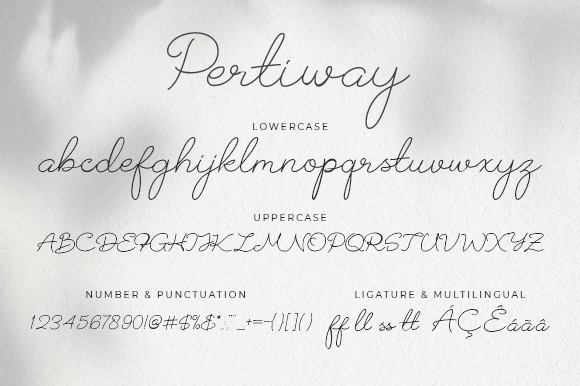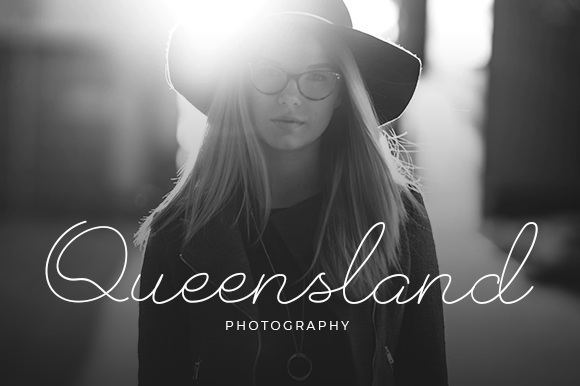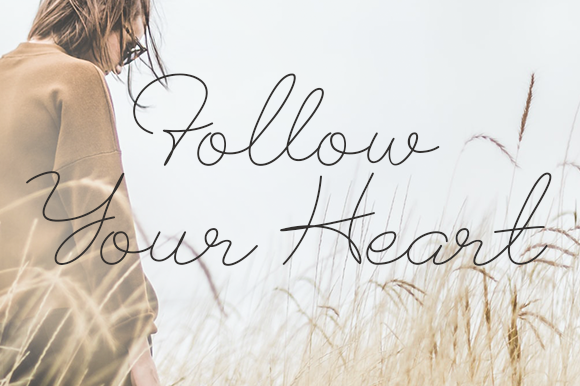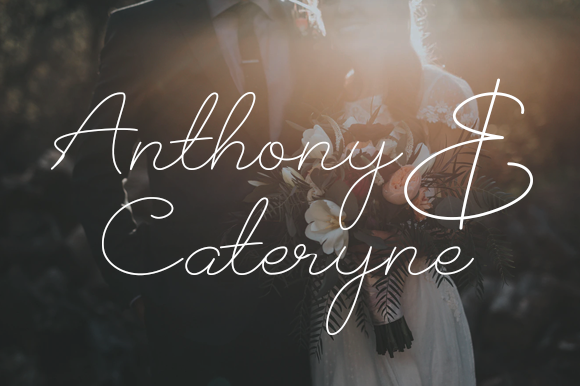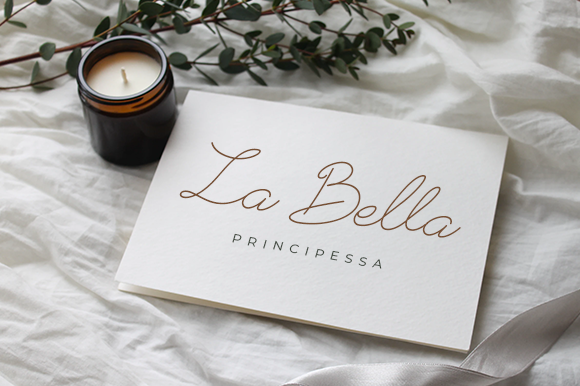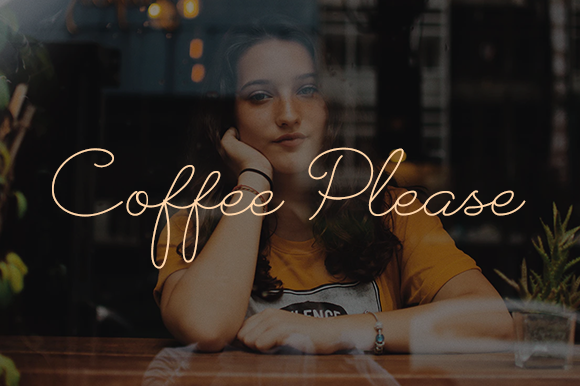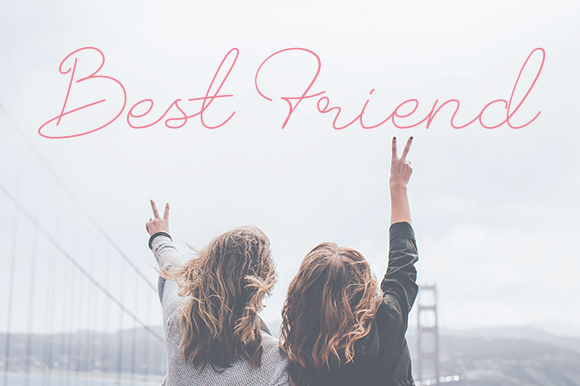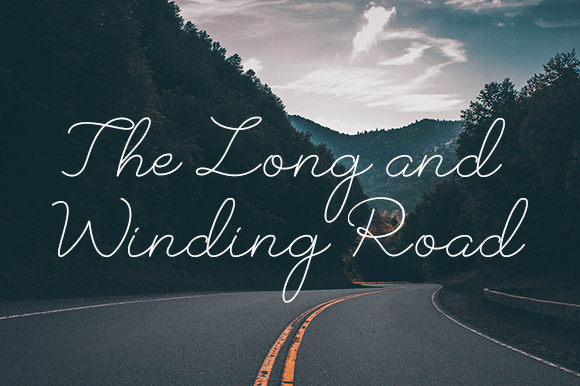
Pertiway Font
About Pertiway Font
Pertiway is a thin lettered and dainty script font. Featuring characters that dance along the baseline, this font will add a luxury spark to any design project that you wish to create!